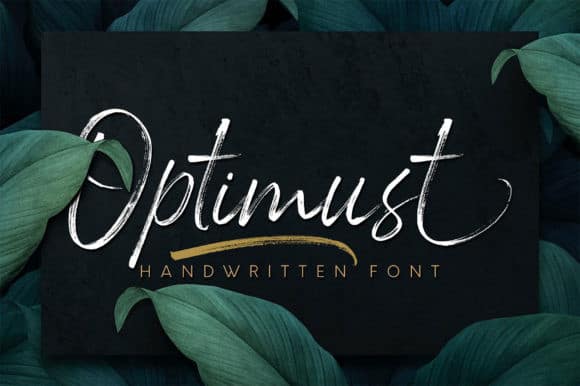
Optimust Brush Font
Optimust Brush Font is a beautiful brush signature typeface. Made for any professional project branding. Every letter has a unique and beautiful touch.
Made from font designer named Omotu. A handwrittent script brush font with 2 styles, regular and slant. Optimust font is suitable for branding, logotype, apparel, T-shirt, Hoodie, product packaging, quotes, flyer, poster, advertising, etc.